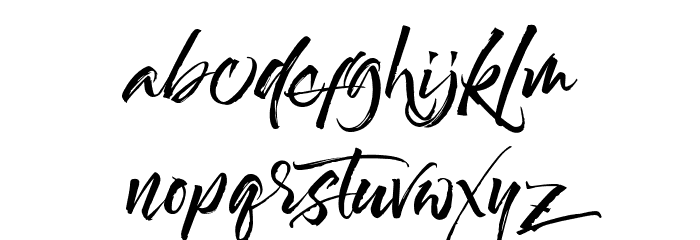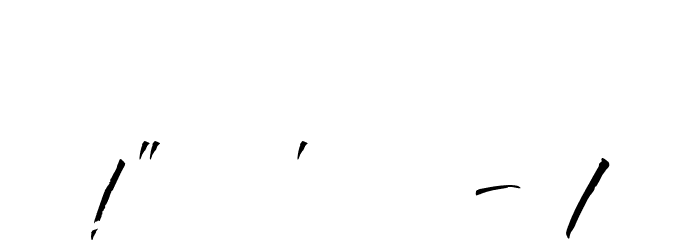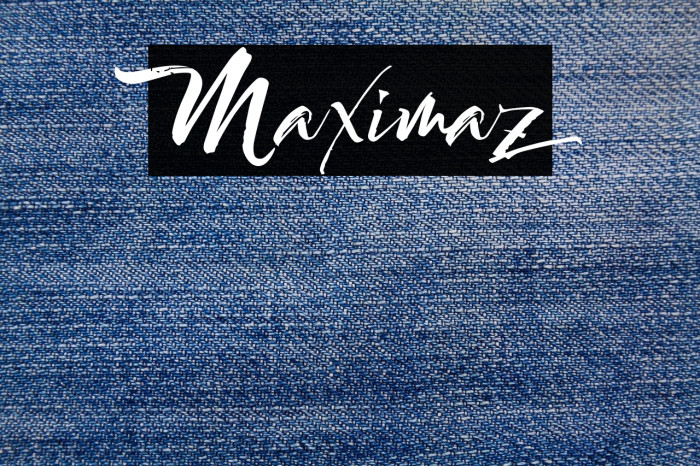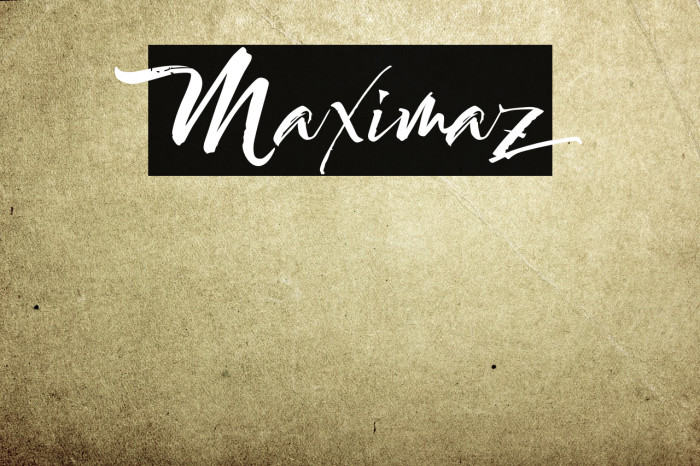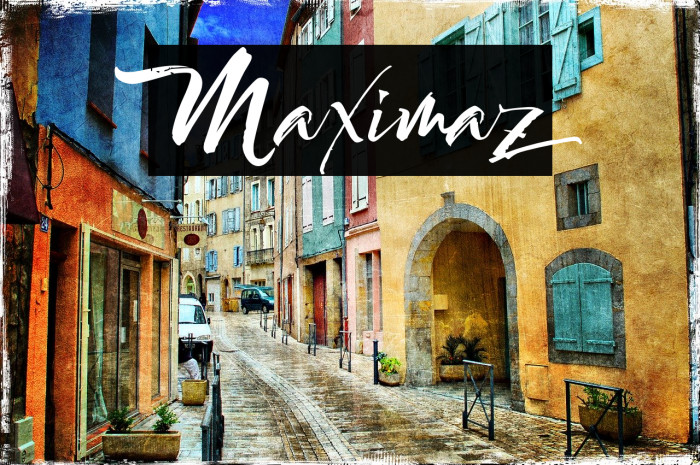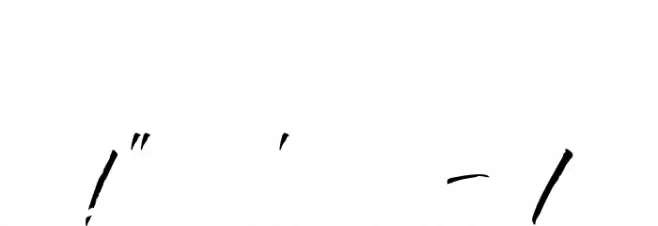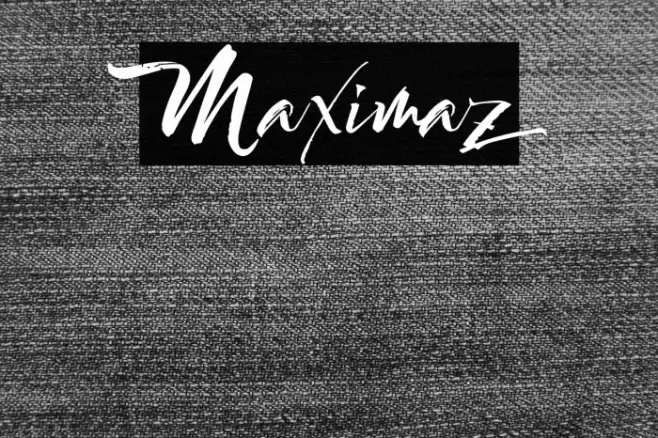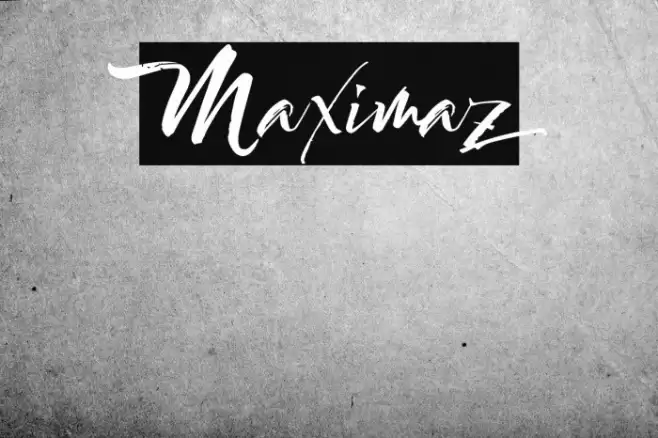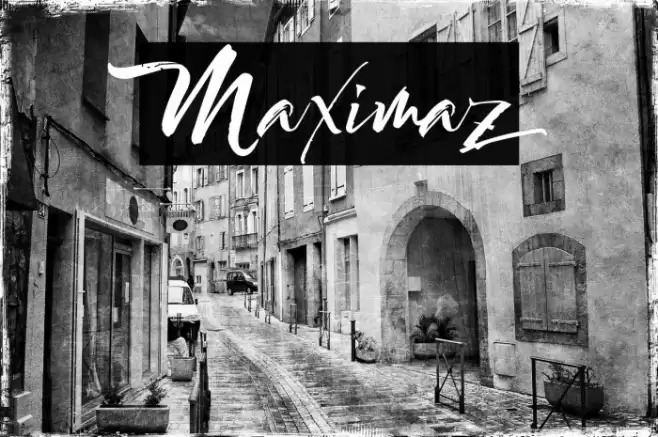
Maximaz Font
This font exudes a dynamic and expressive style, characterized by its bold, sweeping strokes and fluid, cursive design. The letters are crafted with a sense of motion, giving each character a unique flair that suggests a hand-drawn quality. The uppercase letters are particularly striking, with dramatic flourishes and varying line thickness that add to the overall artistic feel. The lowercase letters maintain this energetic style, with a slightly more restrained approach that ensures readability. The numbers and special characters are consistent with the font's overall aesthetic, providing a cohesive look across all elements.
A bold, expressive script font with dynamic, hand-drawn strokes.
- Proposed Projects: Ideal for creative projects such as logo design, branding, invitations, and artistic posters.
- Category: Script
- Use Case: Logos, Headlines, Artistic projects